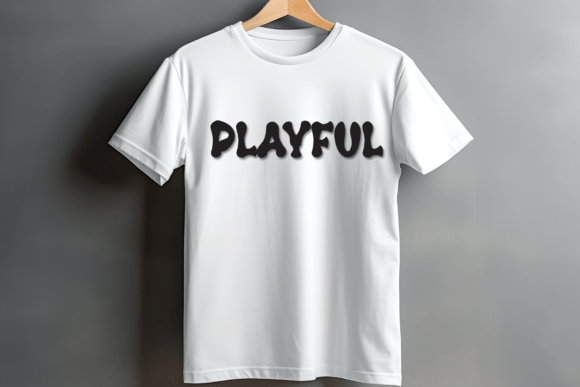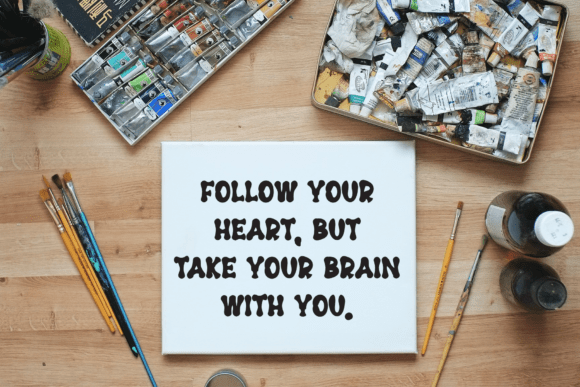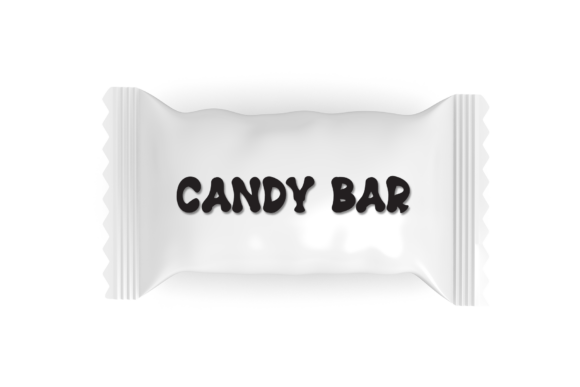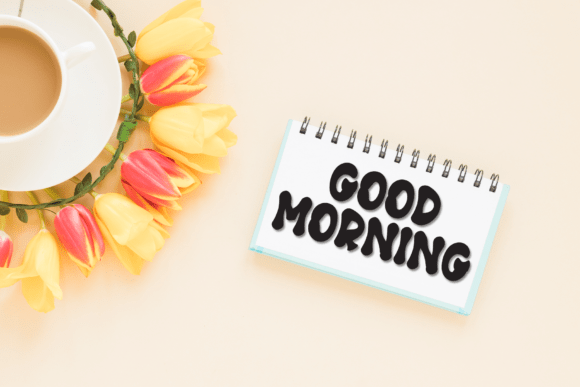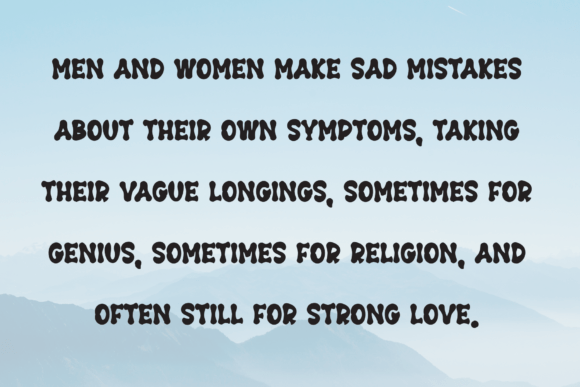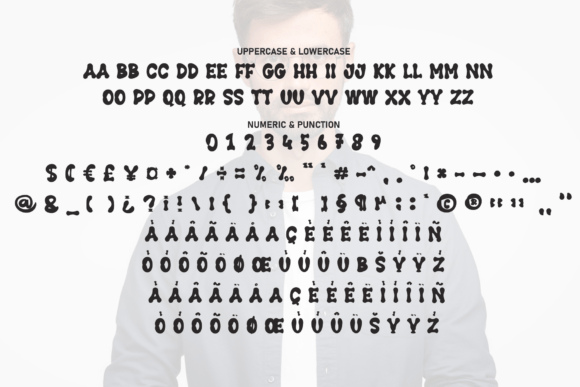
Introducing Handsome Font: The Ultimate Display Font for Whimsical Designs
Are you tired of using the same old fonts in your designs? Do you want to add a touch of personality and whimsy to your projects? Look no further than Handsome Font, a charming and easy-to-love handwritten display font that’s sure to bring a smile to your face. With its sweet and friendly strokes, this font is perfect for designers and crafters who want to add a dash of playful charm to their work.
The Perfect Blend of Fun and Elegance
Handsome Font is more than just a font – it’s an experience. With its delightful and airy feel, it’s like a breath of fresh air for your designs. This font effortlessly breathes life into any project, making it perfect for wedding invitations, lovely cards, and other creative endeavors that require a touch of whimsy. Whether you’re a designer, crafter, or DIY enthusiast, Handsome Font is sure to become your new go-to font.
What Makes Handsome Font So Special?
So, what sets Handsome Font apart from other fonts out there? Here are just a few reasons why this font is a cut above the rest:
- Unique and Whimsical Design: Handsome Font features a one-of-a-kind design that’s both playful and elegant. Its sweet and friendly strokes are sure to capture the hearts of your audience.
- Perfect for Creative Projects: Whether you’re working on a wedding invitation, greeting card, or other creative project, Handsome Font is the perfect choice. Its whimsical design adds a touch of personality to any project.
- Easy to Read and Use: Despite its playful design, Handsome Font is easy to read and use. Its clear and legible strokes make it perfect for both digital and print projects.
- Versatile and Adaptable: Handsome Font is versatile and adaptable, making it perfect for a wide range of projects and applications. Use it for titles, headings, and more.
How to Use Handsome Font in Your Designs
Using Handsome Font in your designs is easy. Here are a few tips to get you started:
- Pair it with Other Fonts: Handsome Font pairs well with other fonts, making it easy to create visually appealing combinations. Try pairing it with a clean sans-serif font for a modern look or a serif font for a more traditional feel.
- Use it for Titles and Headings: Handsome Font is perfect for titles and headings, where its whimsical design can really shine. Use it to add a touch of personality to your project.
- Add a Pop of Color: Handsome Font looks great in a variety of colors, so don’t be afraid to add a pop of color to your design. Try using a bright and bold color to really make your text stand out.
Who is Handsome Font For?
Handsome Font is perfect for designers, crafters, and DIY enthusiasts who want to add a touch of whimsy to their projects. Here are a few examples of who might benefit from using this font:
- Wedding Planners and Designers: If you’re planning a wedding or designing materials for a wedding, Handsome Font is a great choice. Its whimsical design is perfect for wedding invitations, save-the-dates, and other wedding-related materials.
- Card Makers and Stationery Designers: If you love making cards or designing stationery, Handsome Font is a great addition to your design toolkit. Its playful design is perfect for greeting cards, invitations, and other paper crafts.
- Graphic Designers and Branding Experts: If you’re a graphic designer or branding expert looking for a unique and playful font to add to your toolkit, Handsome Font is a great choice. Its whimsical design is perfect for branding projects, social media graphics, and more.
In conclusion, Handsome Font is a charming and easy-to-love handwritten display font that’s perfect for designers and crafters who want to add a touch of whimsy to their projects. With its sweet and friendly strokes, this font is sure to bring a smile to your face and a dash of playful charm to your designs. So why wait? Download Handsome Font today and start creating your own whimsical designs!